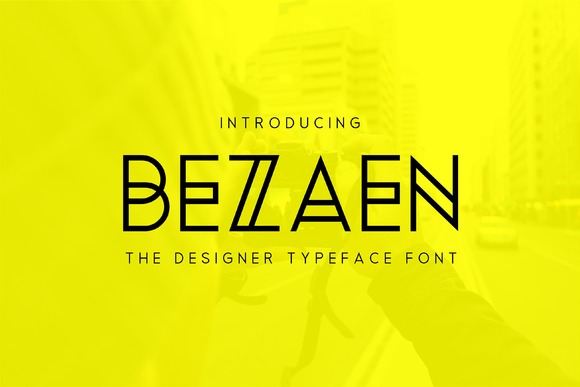
The Designer’s Delight: A Deep Dive into Bezaen Font
I’ll never forget the frustration of working on a project, pouring my heart and soul into every detail, only to hit a roadblock when it came to finding the perfect font. My client wanted something clean, modern, and minimalistic, but everything I tried seemed to fall flat. That was until I stumbled upon Bezaen Font – a game-changer for designers, crafters, and creative hobbyists alike.
First Impressions: A Love Affair with Bezaen
Bezaen Font is, without a doubt, a perfect, clean, and minimalistic typeface that has won my heart with its awesome characters. Here’s what I love about it:
- ✨ **Clean and Minimalistic Design**: Bezaen’s sleek lines and simple shapes make it perfect for a wide range of design projects, from logos and branding to digital and print materials.
- ✅ **Awesome Characters**: The font comes with a range of awesome characters that add a touch of personality to any design.
- 💡 **High Versatility**: Bezaen Font is highly versatile, making it suitable for various design projects, from headings and titles to body text.
The Not-So-Perfect: A Few Quirks
While Bezaen Font is an excellent choice, it’s not without its limitations. Here are a few things to keep in mind:
- 🤔 **Limited Serif Options**: As a sans-serif font, Bezaen may not be the best choice for projects that require a traditional serif look.
- ⚠️ **Some Ligatures May Not Display Correctly**: Depending on the platform or software used, some ligatures may not display correctly, which can affect the overall look of the design.
The Story Behind Bezaen Font
While the true story behind Bezaen Font may be unknown, it’s easy to imagine that it was created with the intention of providing a clean and modern typeface for designers. Perhaps the designer, inspired by the simplicity and elegance of modern design, set out to create a font that would meet the needs of creative professionals.
| Font Name | Bezaen Font |
| Author | Graphicfresh |
| What is Bezaen Font? | Bezaen Font is a clean and minimalistic typeface with awesome characters, perfect for a wide range of design projects. |